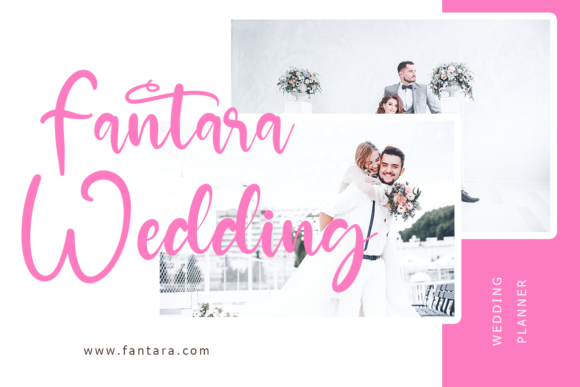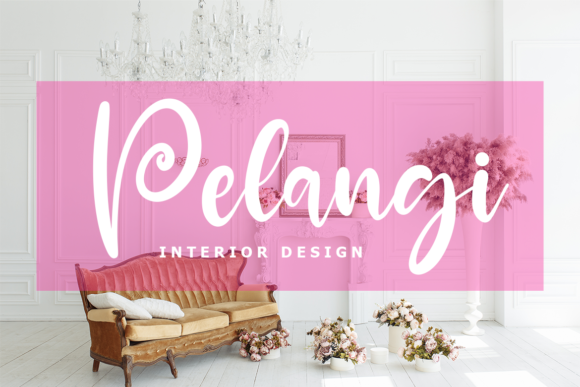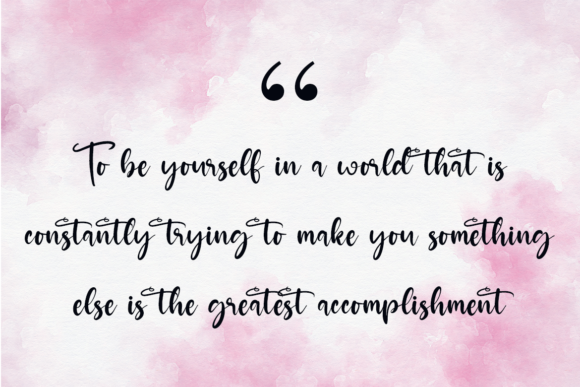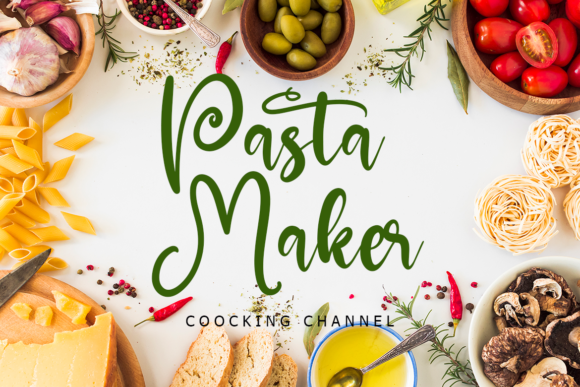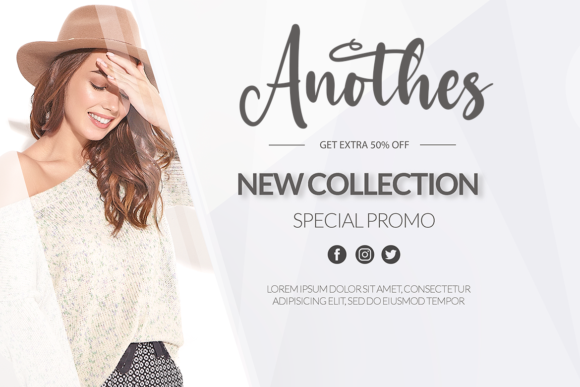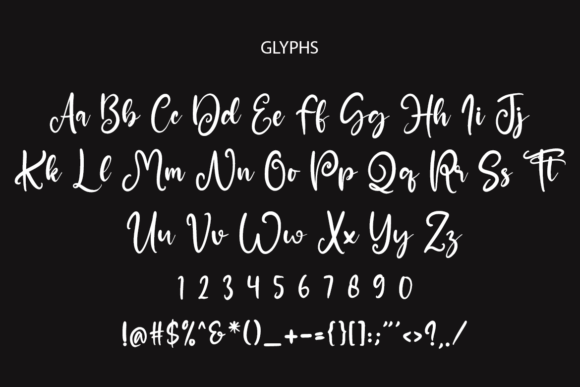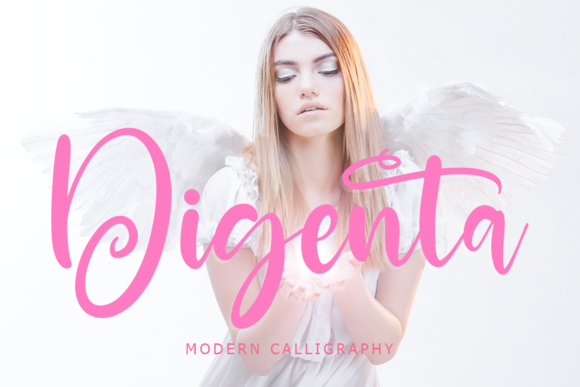
Introducing Digenta Font: Elevate Your Designs with Elegance and Flair
Are you a designer or crafter looking for a font that embodies elegance, delicacy, and a touch of sophistication? Look no further than Digenta Font, a beautiful, handwritten font that is sure to bring your creative ideas to life. With its flowing lines, balanced characters, and versatile style, Digenta Font is the perfect addition to any design project.
The Beauty of Digenta Font
Digenta Font is a delicate, elegant, and flowing handwritten font that exudes refinement and poise. Its beautiful, well-balanced characters make it an ideal choice for a wide range of designs, from wedding invitations and stationery to branding, packaging, and digital media. Whether you’re creating a romantic, whimsical, or sophisticated design, Digenta Font is sure to add a touch of magic to your project.
Key Features of Digenta Font
- Delicate and Elegant: Digenta Font features flowing lines and delicate strokes, giving it a refined and sophisticated look.
- Well-Balanced Characters: Each character in Digenta Font is carefully crafted to ensure perfect balance and harmony, making it easy to read and visually appealing.
- Versatile: Digenta Font matches a wide pool of designs, making it a versatile choice for various projects, from elegant wedding invitations to modern branding and packaging.
Why Choose Digenta Font?
So, why should you choose Digenta Font for your next design project? Here are just a few reasons:
- Adds Elegance and Sophistication: Digenta Font instantly elevates your design, adding a touch of elegance and sophistication that sets it apart from the rest.
- Enhances Readability: With its clear, flowing lines and well-balanced characters, Digenta Font ensures that your message is conveyed clearly and effectively.
- Perfect for Creative Projects: Whether you’re a designer, crafter, or DIY enthusiast, Digenta Font is the perfect choice for adding a personal touch to your creative projects.
How to Use Digenta Font in Your Designs
Using Digenta Font in your designs is easy! Here are a few tips to get you started:
- Pair with Bold Fonts: Combine Digenta Font with bold, contrasting fonts to create visual interest and add depth to your design.
- Use for Headings and Titles: Digenta Font is perfect for headings and titles, adding a touch of elegance and sophistication to your design.
- Add to Digital Media: Use Digenta Font in your digital media, such as social media graphics, blog posts, and email newsletters, to add a personal touch and create a lasting impression.
In conclusion, Digenta Font is a beautiful, elegant, and versatile handwritten font that is sure to elevate your designs and bring your creative ideas to life. With its delicate lines, well-balanced characters, and sophisticated style, Digenta Font is the perfect choice for designers, crafters, and DIY enthusiasts looking to add a touch of elegance and refinement to their projects.